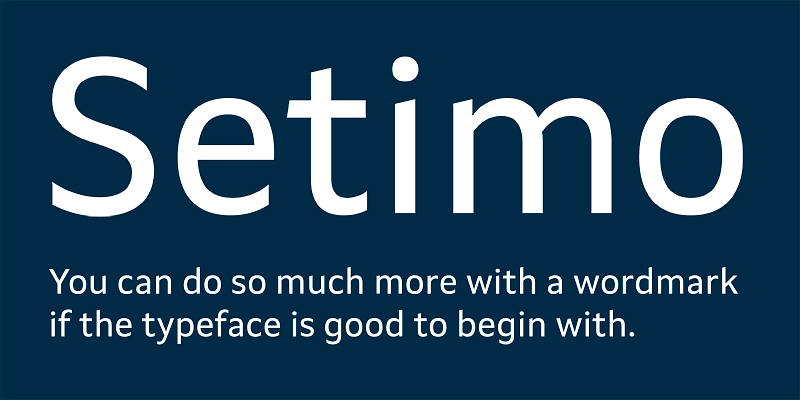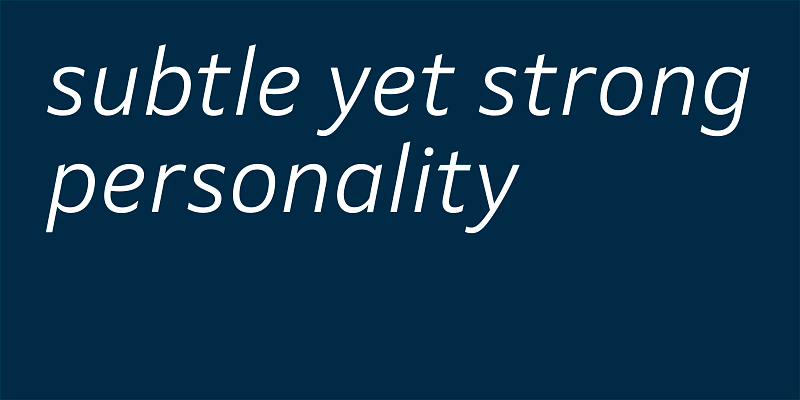
Setimo brings a distinguished and authoritative tone which enriches any surrounding design elements, helping the reader to navigate, absorb, and understand your message.